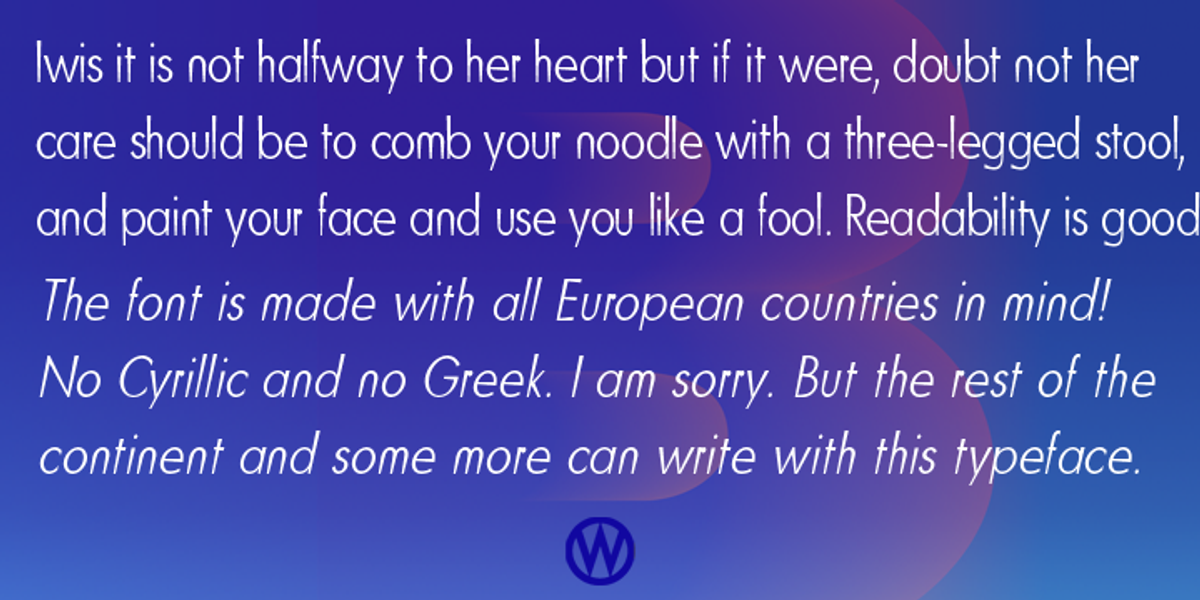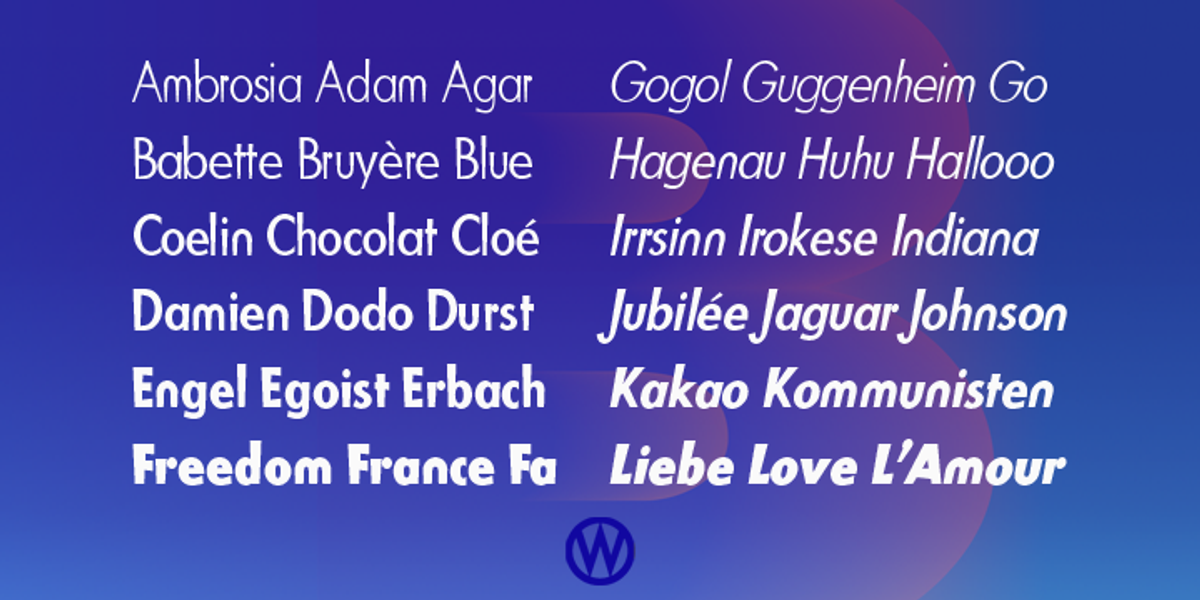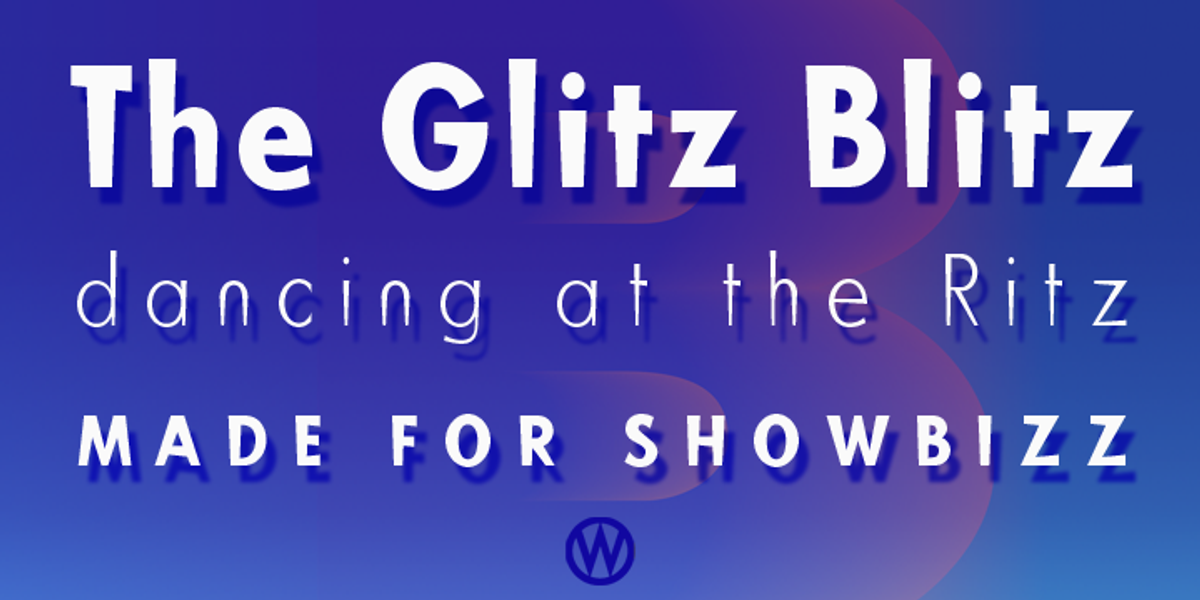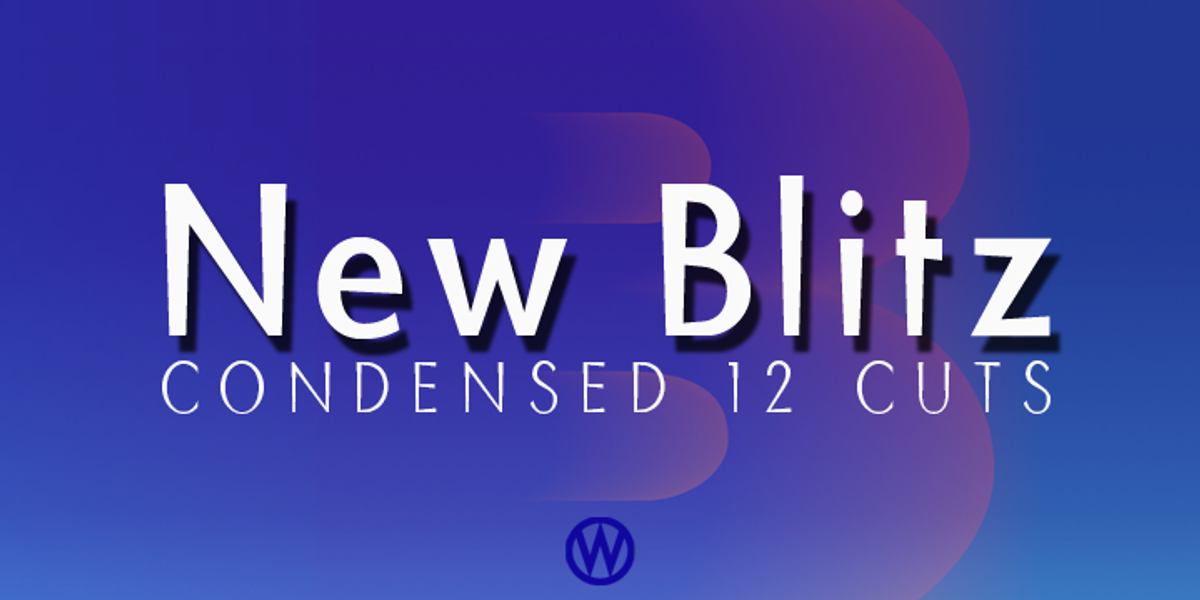
Blitz Condensed
Blitz is a neo-grotesque sans serif typeface designed by Gert Wiescher. Its unique characteristic is its top-heavy design, with thin strokes at the bottom and thick strokes at the top. Despite this unconventional structure, Blitz remains highly readable, making it suitable for both headlines and paragraphs.